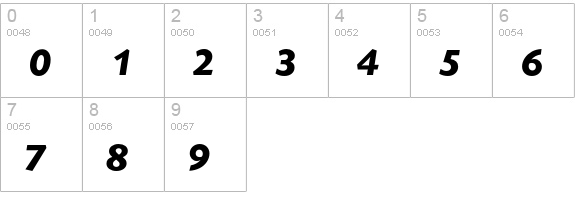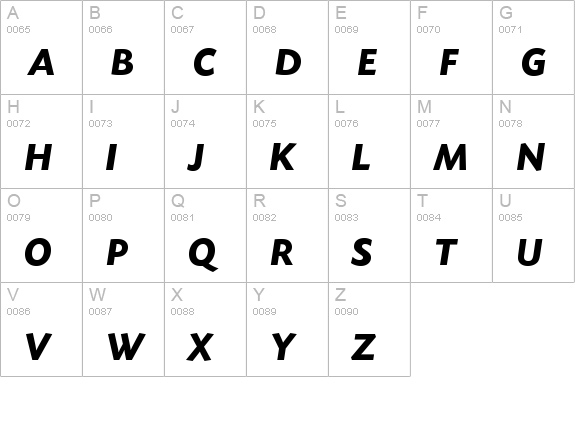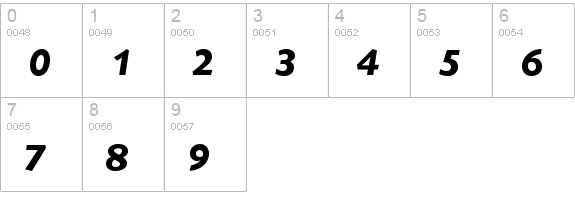
Today Sans Serif Bold Italic is a strong, high-contrast, italic variant in the Today typeface family \xE2\x80\x94 well suited to headlines, attention-grabbing titles, and strong calls-to-action.
Today Sans Serif Bold Italic is a modern and versatile typeface that effortlessly combines a clean and elegant design with a touch of boldness and sophistication. Its bold italic variant adds a dynamic and eye-catching element to any project, making it perfect for attention-grabbing headlines, stylish logos, or striking typographic compositions. This font is meticulously crafted with attention to detail, resulting in sharp and crisp letterforms that are highly legible even at smaller sizes. The bold italic style adds a sense of emphasis and drama, making it ideal for conveying strong messages or creating a sense of visual impact. One of the most remarkable aspects of Today Sans Serif Bold Italic is that it is available for free download at FontsMarket.com. This means that designers, creatives, and typographers alike can access this fantastic font without any financial barriers. Whether you're a professional designer or an aspiring enthusiast, this font is yours to explore and use in your projects, without having to worry about the cost. With its bold and italic design, Today Sans Serif Bold Italic is a versatile font that can be used across a wide range of design applications. From print materials such as posters, brochures, and magazine layouts to digital platforms like websites and social media graphics, this font will make a lasting impression. Its clean and contemporary aesthetic makes it suitable for both corporate and creative projects, allowing it to adapt to various design styles and requirements. The bold italic style adds an extra layer of character and personality, making it an excellent choice for designers looking to create unique and impactful designs. Whether you're looking to add a touch of sophistication to your branding, create attention-grabbing headlines, or simply elevate your typographic compositions, Today Sans Serif Bold Italic is the perfect choice. And with its availability for free download at FontsMarket.com, there's no reason not to explore the possibilities and unleash your creativity with this remarkable font.